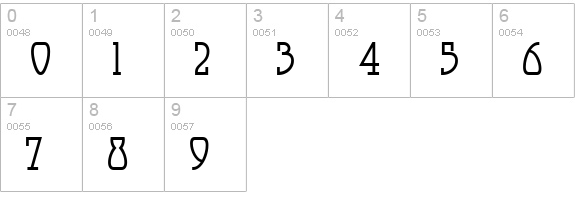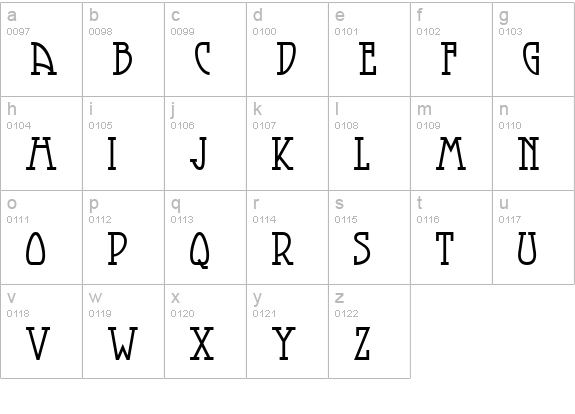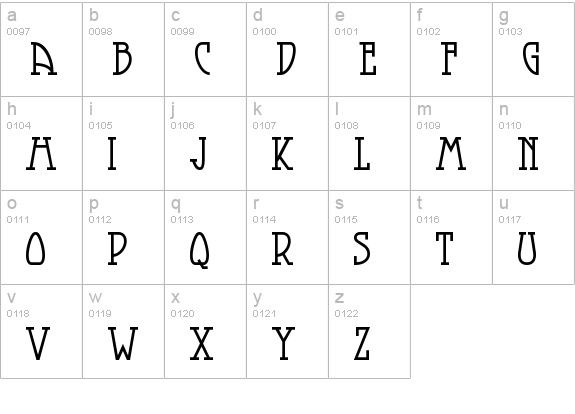
Smorgasbord NF Font Details
Introducing Smorgasbord NF font, a versatile and stylish typeface that is sure to add a touch of elegance to any design project. With its unique blend of classic and modern elements, this font is perfect for a wide range of applications, from branding and advertising to packaging and web design. What sets Smorgasbord NF font apart is its seamless combination of sophistication and playfulness, making it suitable for both formal and informal settings. The smooth curves and sharp edges of the letters create a harmonious balance that is visually appealing and easy to read. Best of all, Smorgasbord NF font is available for free download at FontsMarket.com, allowing you to unleash your creativity without breaking the bank. Whether you're a seasoned designer looking for a fresh new font or a beginner exploring typography for the first time, this font is sure to inspire and delight. Download Smorgasbord NF font today and elevate your design projects to new heights!